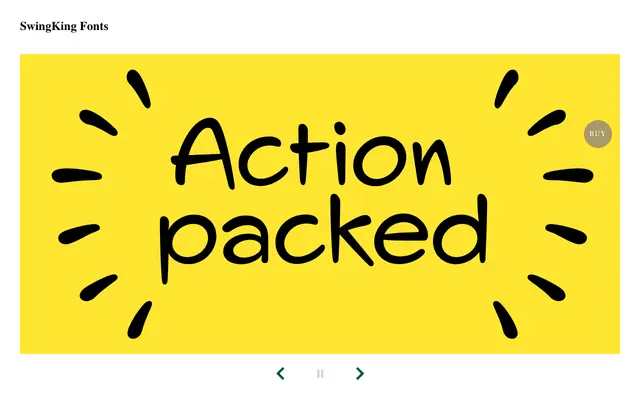
SwingKing
Ivy Foundry · Jan Maack, Erik Sørensen
A casual sans drawn from the hand lettering of Danish illustrator Erik Sørensen, digitised and refined by Jan Maack, with an extensive companion icon set.
Jan Maack collaborated with Erik Sørensen, a Danish illustrator who spent decades unable to find a typeface that matched his comic strip aesthetic, to produce this digitised and polished casual sans. The result sits between cartoonish and handwritten without committing to either, making it usable for a range of informal applications. A dedicated Icons font adds dozens of symbols, pictograms and emojis that extend the family's expressive range.
SwingKing is a casual sans-serif drawn from hand-lettered sources and digitised for typographic use; its illustrative origins and accompanying icon set place it firmly in the display category rather than a workhorse sans.